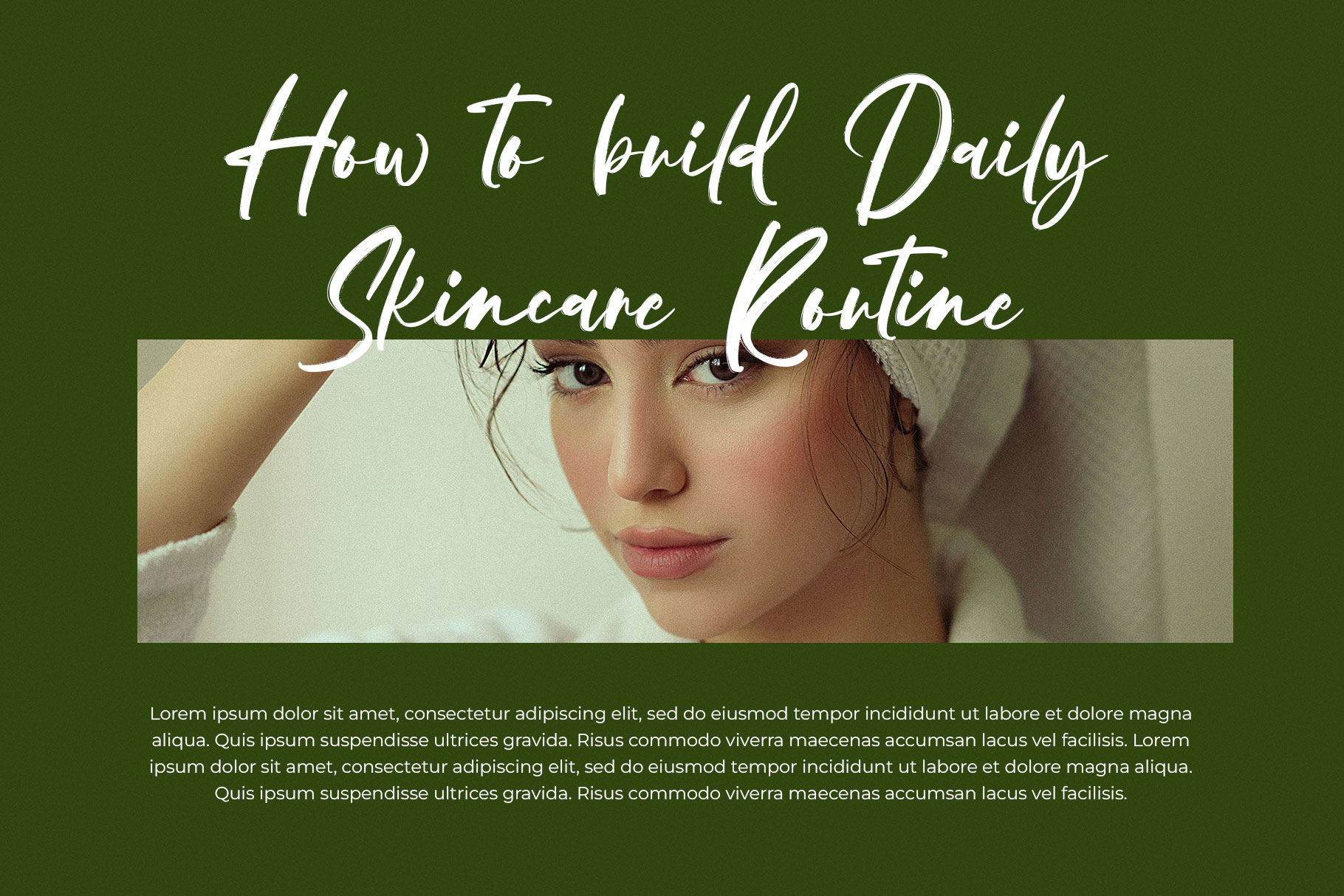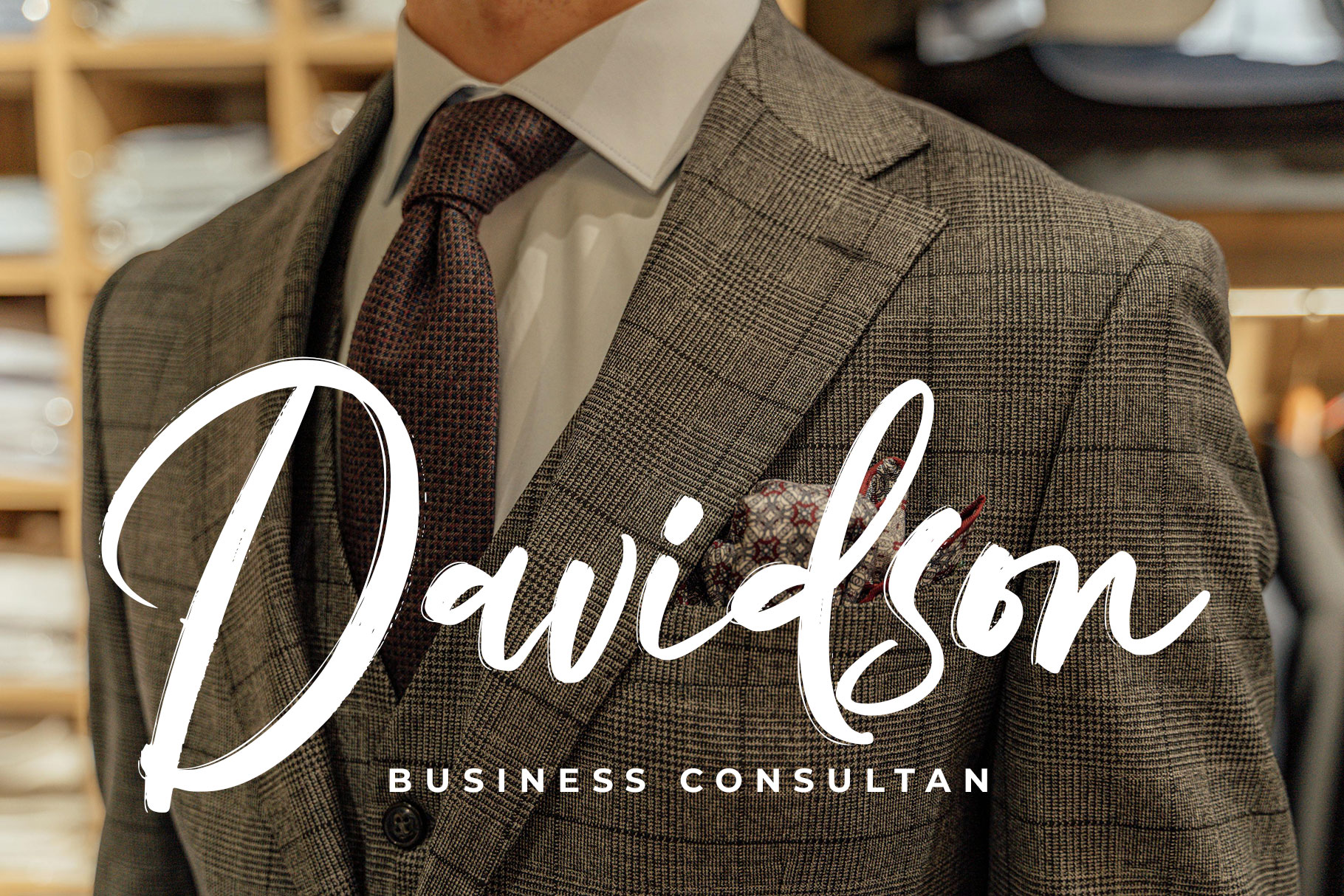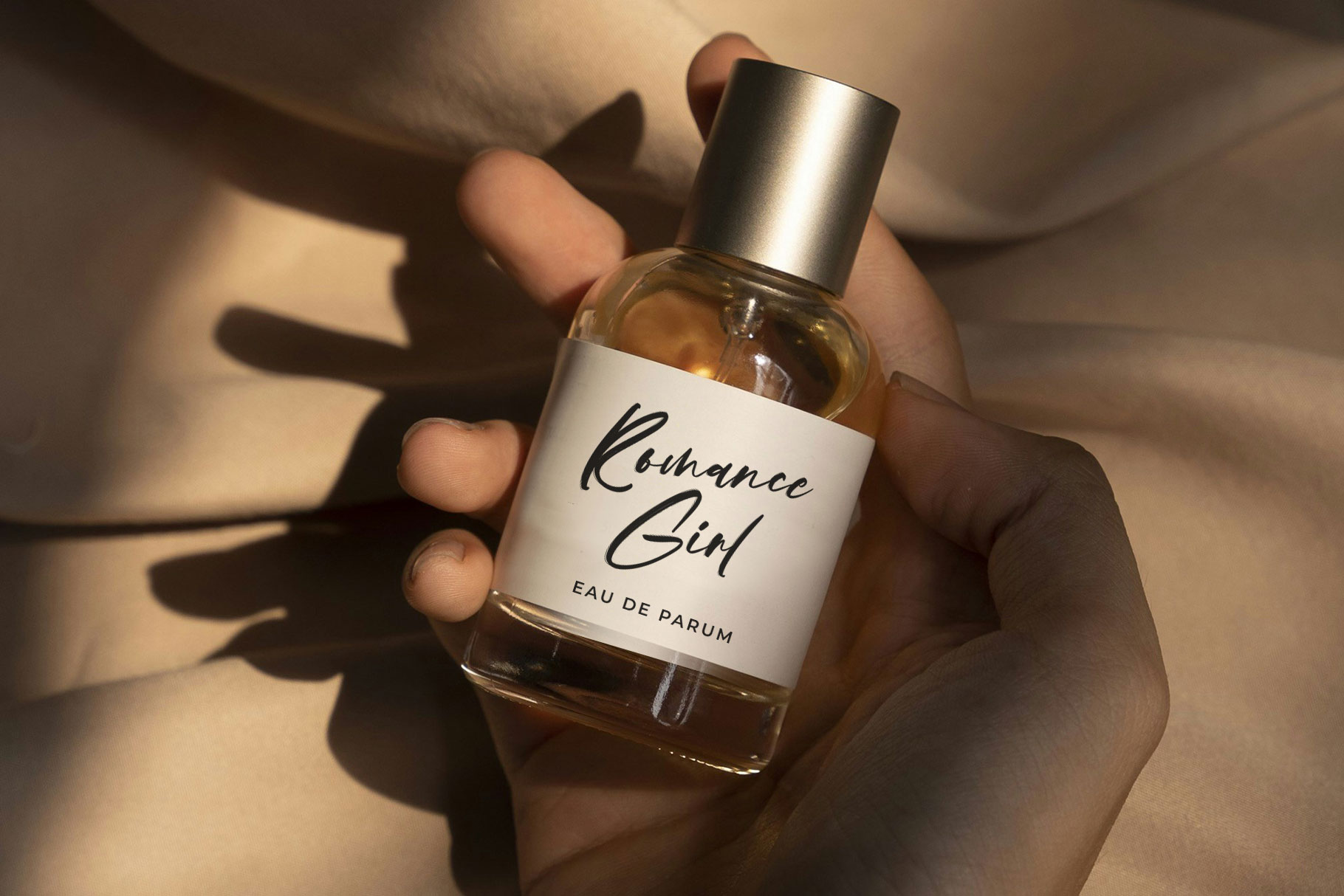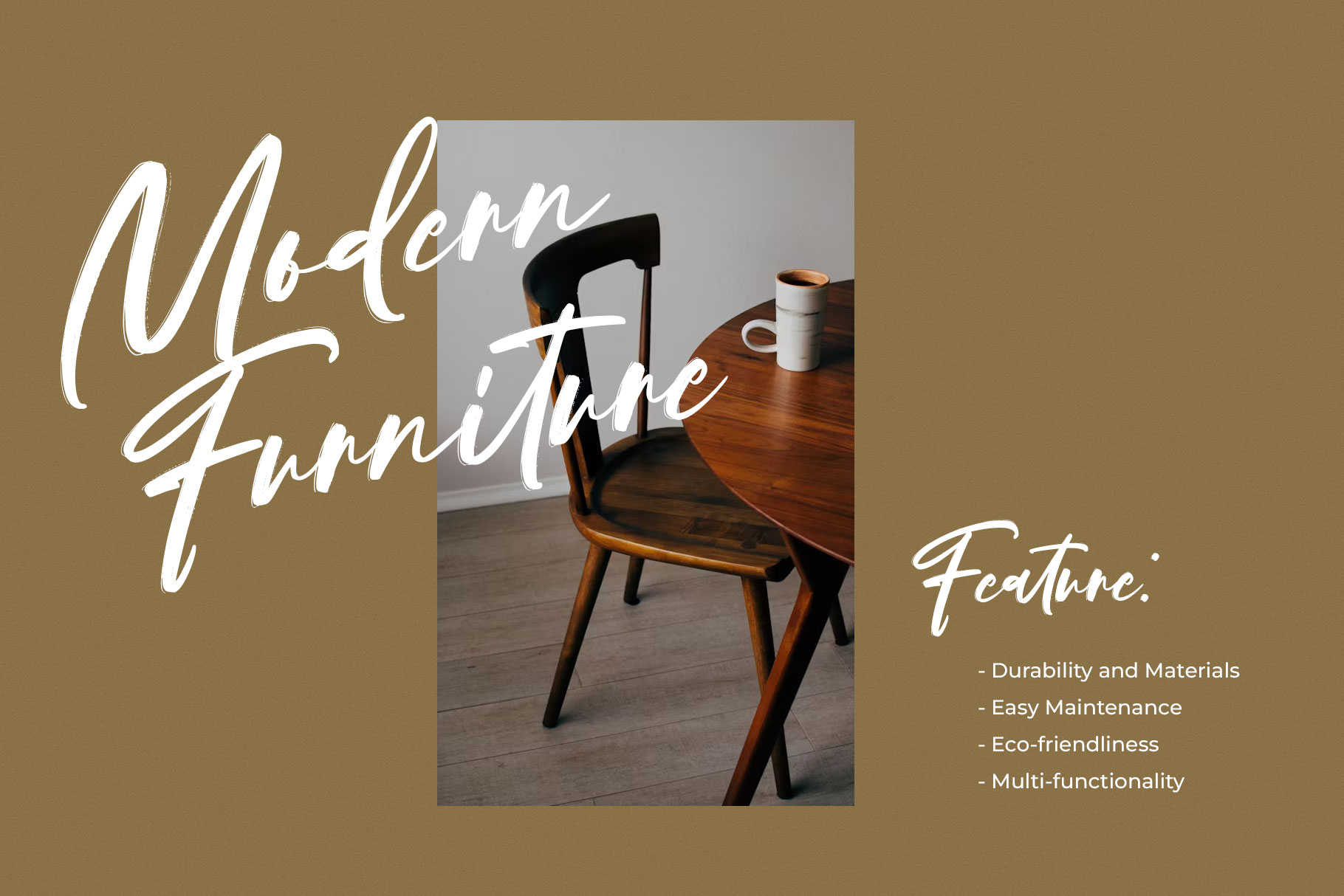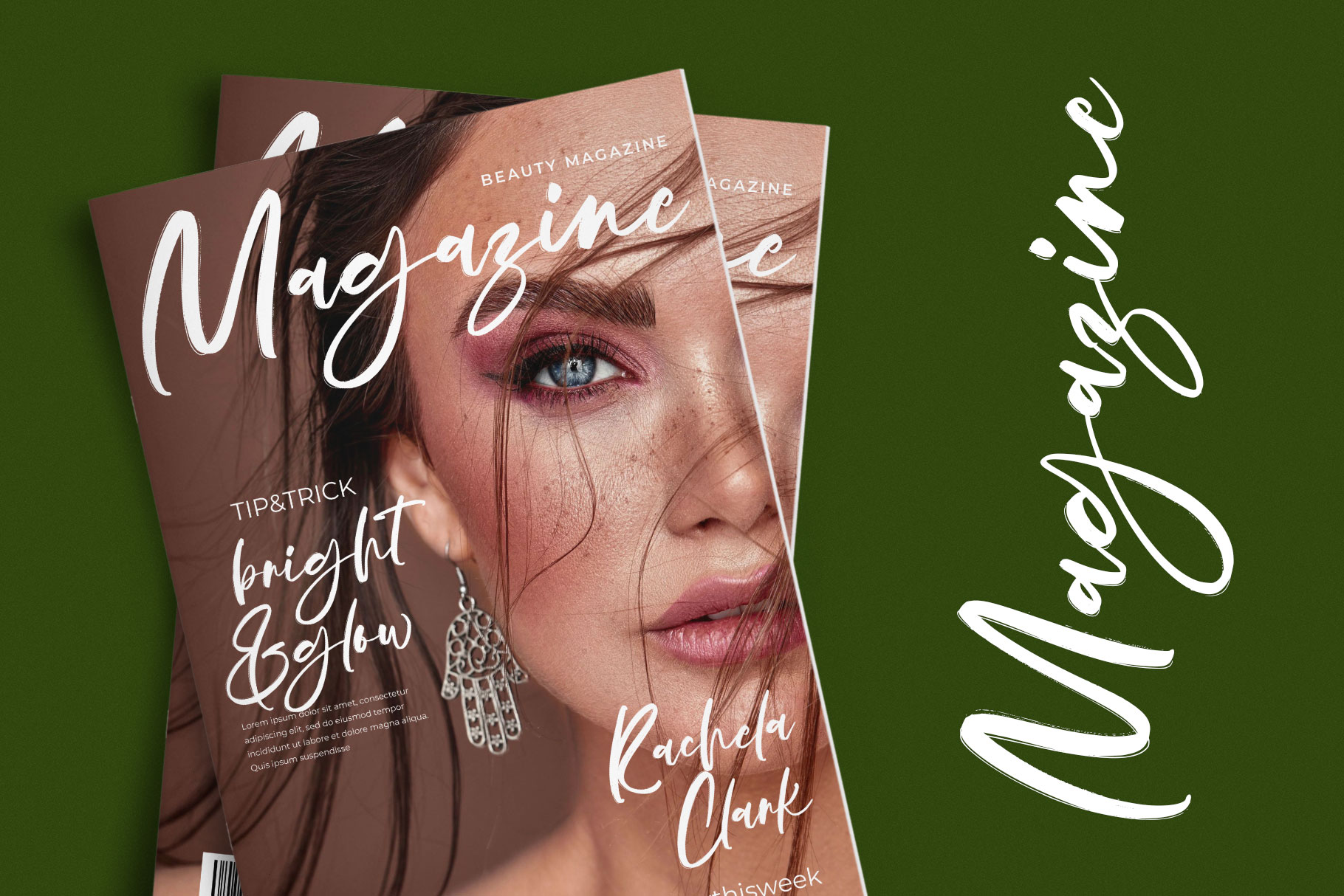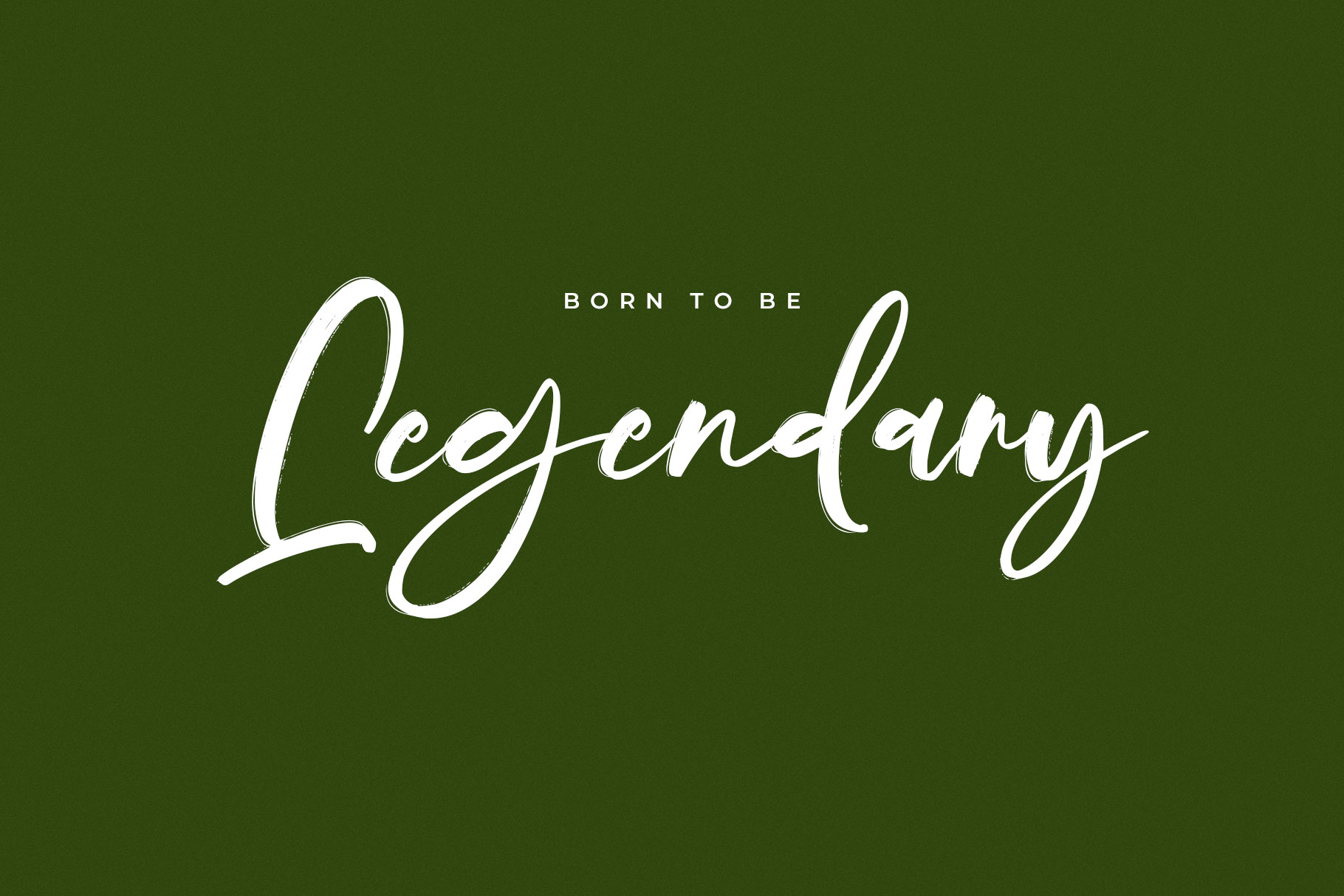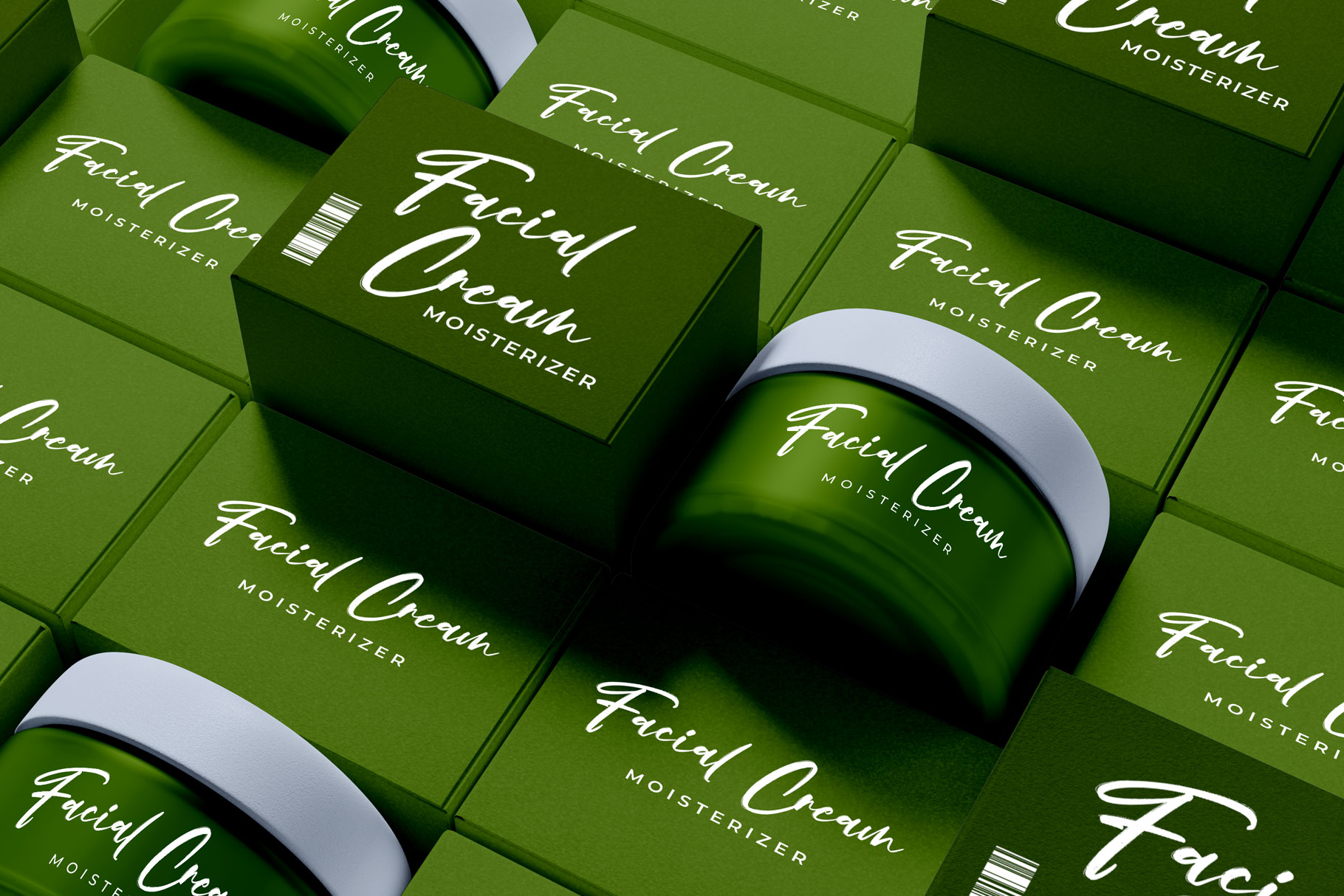
Ballemun Classy Handwritten Brush Font
Ballemun is classy handwritten brush with stylish and natural brush sign. Ballemun is a perfectly choice for any creative endeavor, creating, modern, chic, lifestyle design such as logotype, title, cover, branding, invitations, wedding designs, display and magazine, social media posts, advertisements, printed quotes, product packaging, corporate brand, product designs, labels, photography, watermarks, special events and any other project with elegant touch.